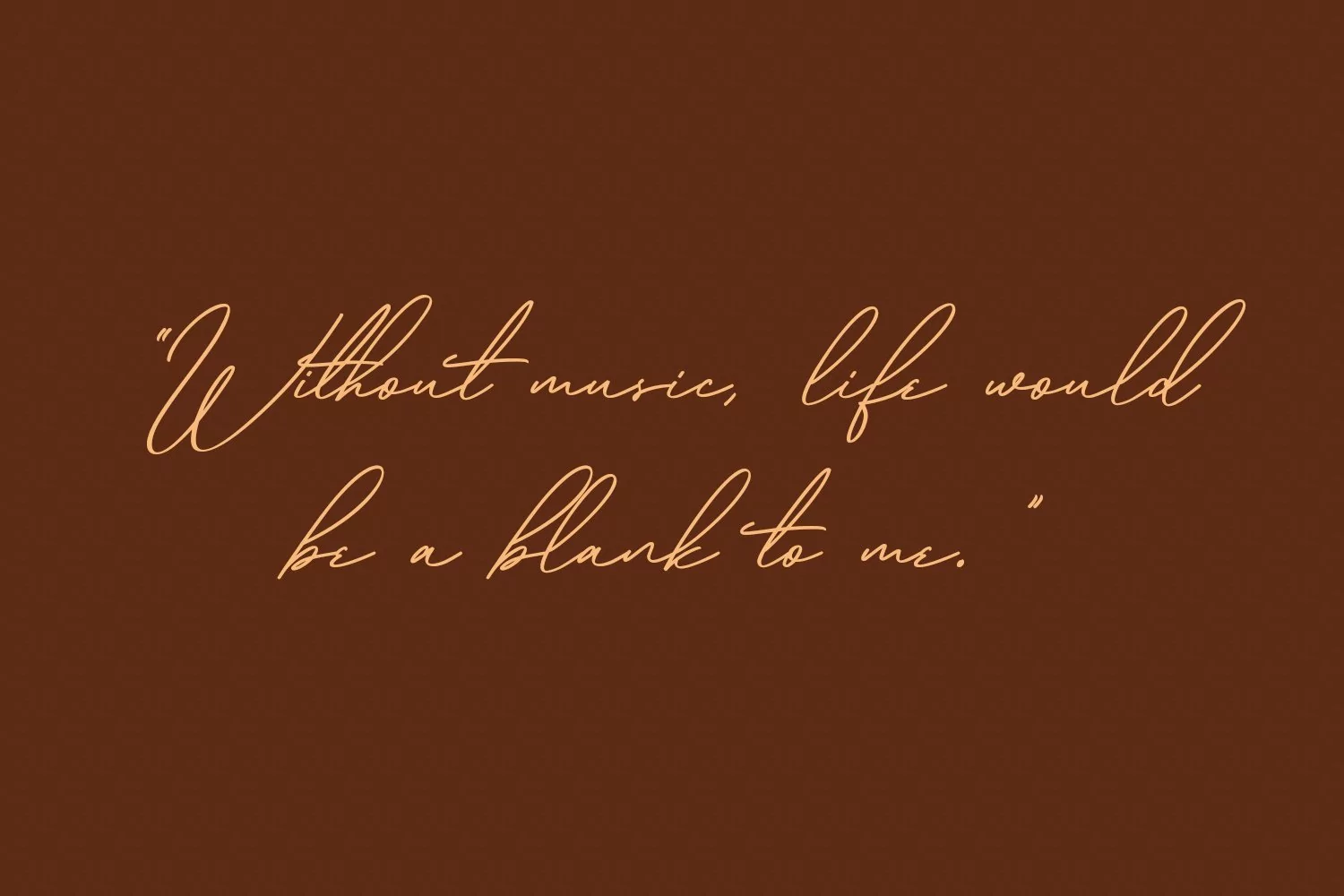
Linestorys is a signature script font. With light mono-line stroke, fun character with a bit of ligatures and swashes. To give you an extra creative work. Linestorys font support multilingual more than 100+ language. This font is good for logo design, Social media, Movie Titles, Books Titles, a short text even a long text letter and good for your secondary text font with sans or serif. Make a stunning work with Linestorys font.